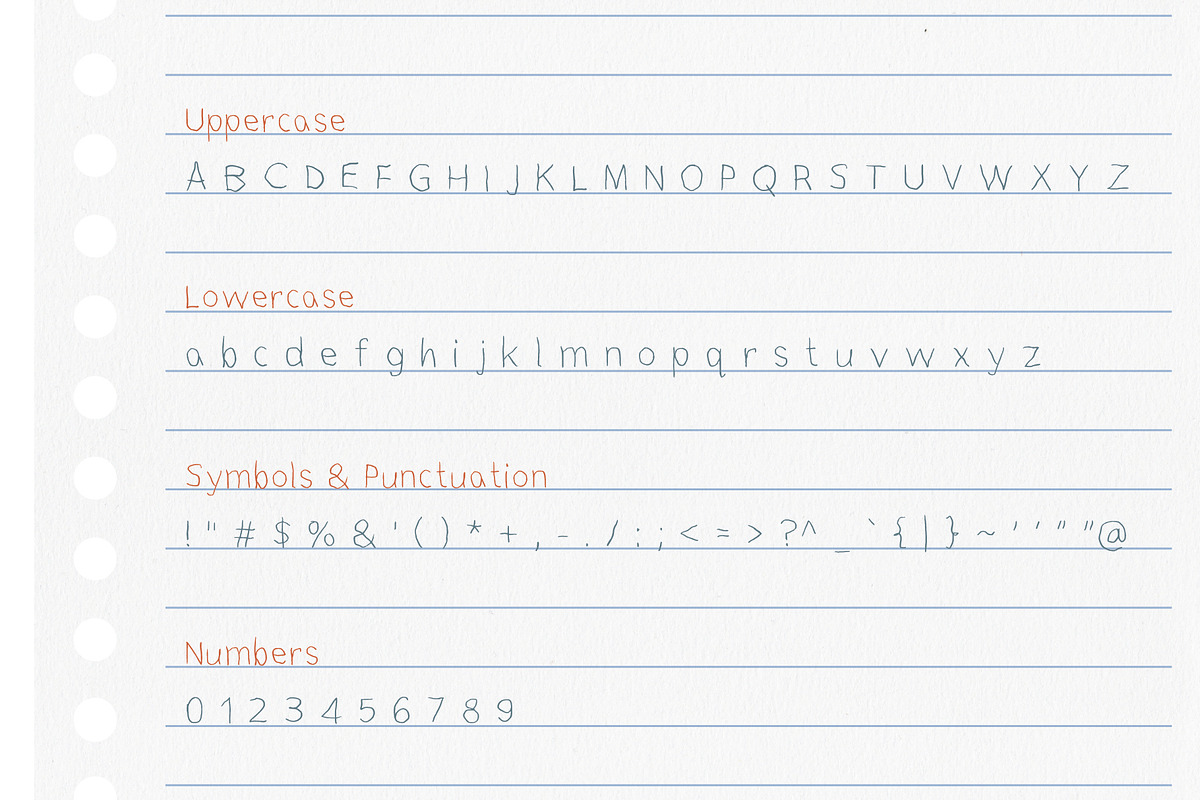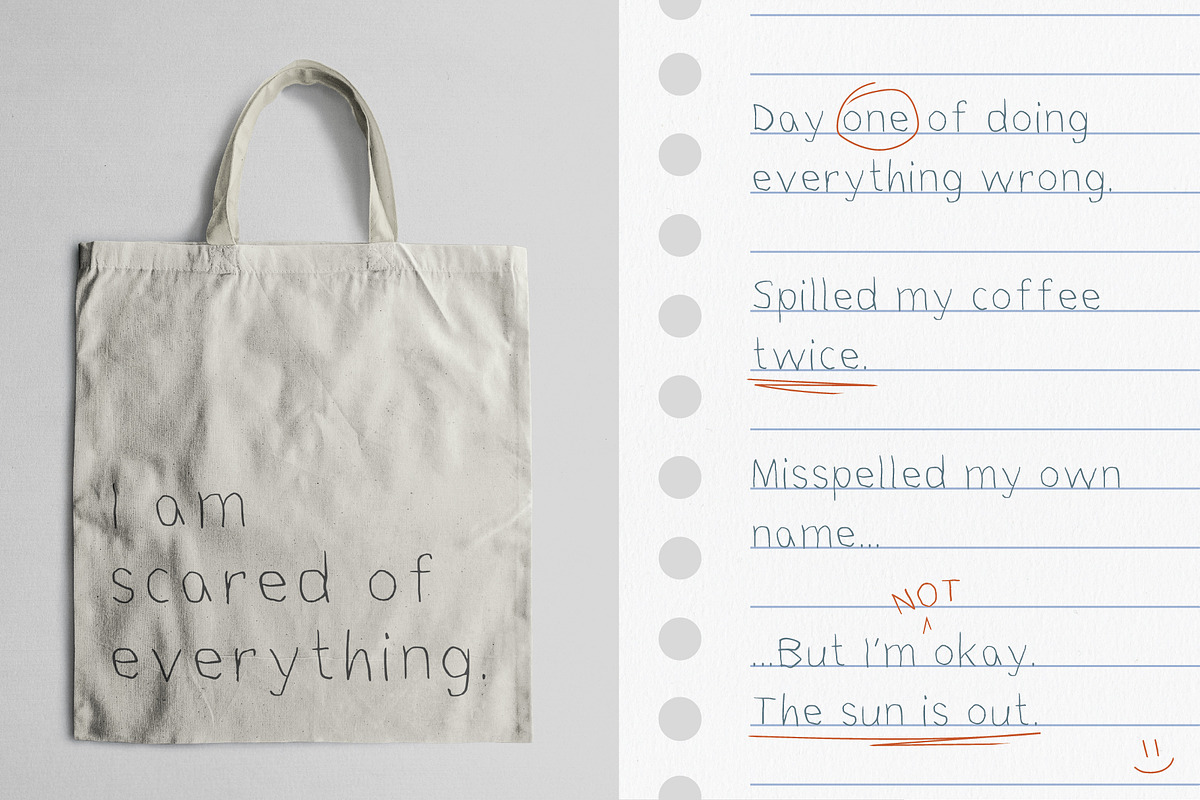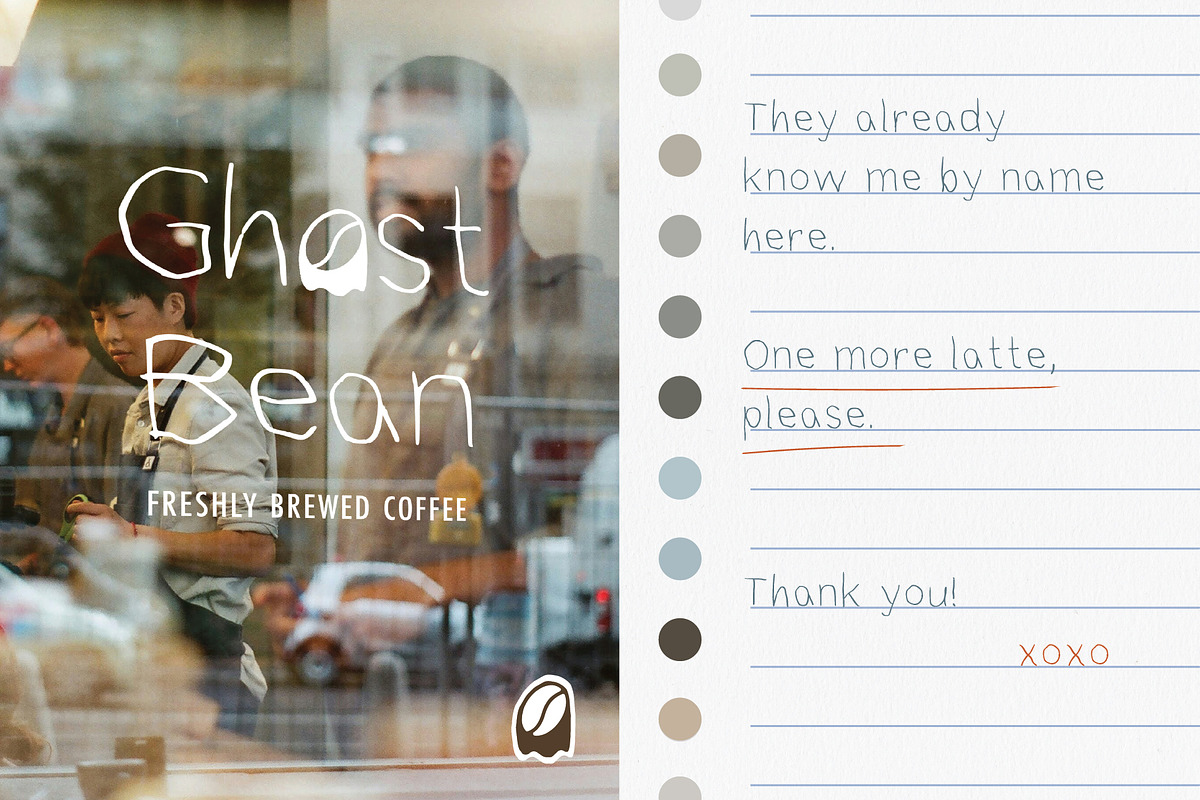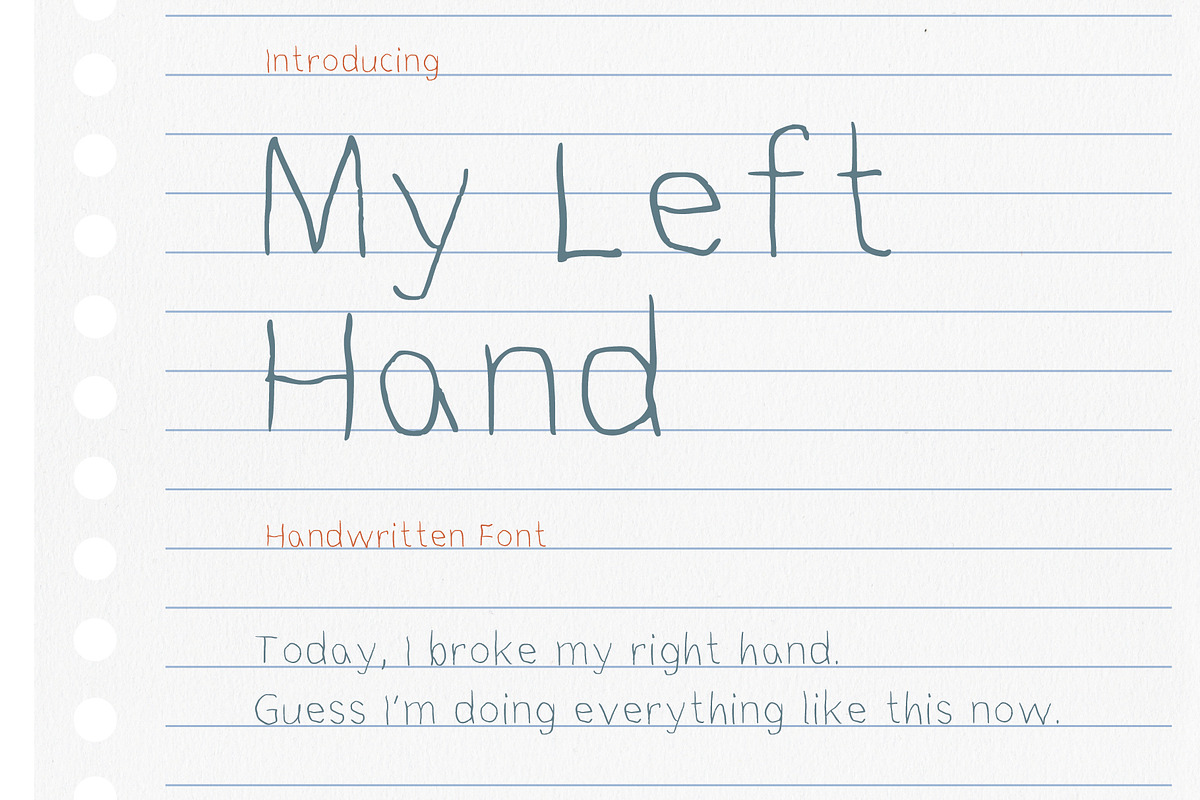
My Left Hand
My Left Hand is a whimsical, quirky handwritten font with unique, uneven strokes that create a playful, shaky appearance. Perfect for adding personality and humor to projects, it’s ideal for illustrating nervous characters, quirky dialogue, or any design that needs a fun, authentic touch.